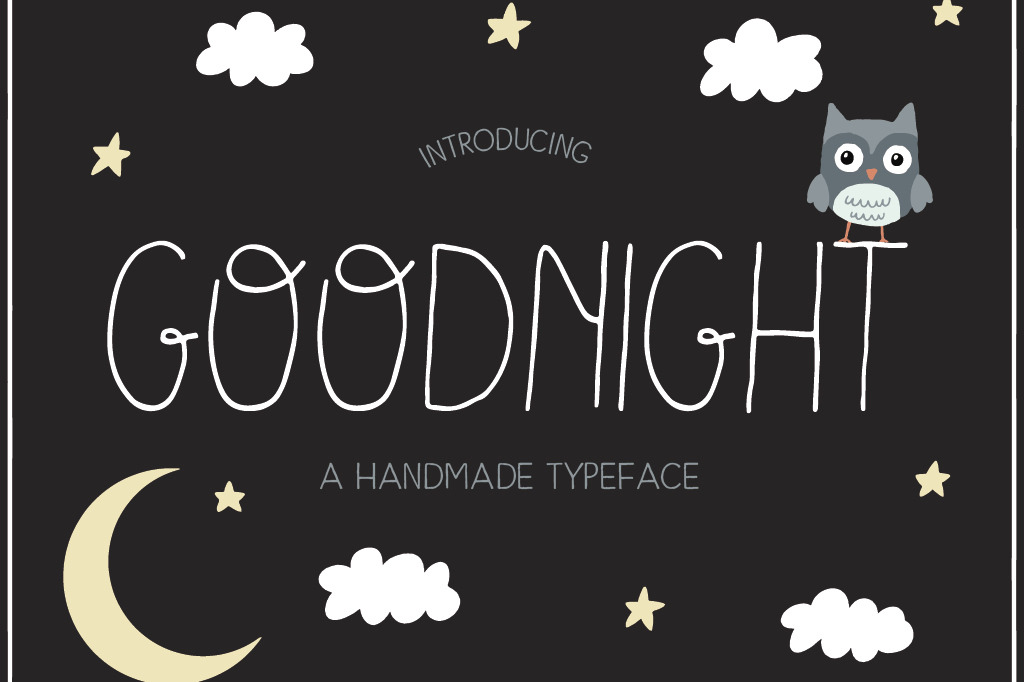
Goodnight Handmade Font
Goodnigh
Goodnight is a playful handmade typeface that includes numbers, punctuation and a few international characters. And as a bonus, it also includes a vector and a psd file with the owls and other illustrations used on the images.Hope you like it and feel fre to message me if you need anything :)